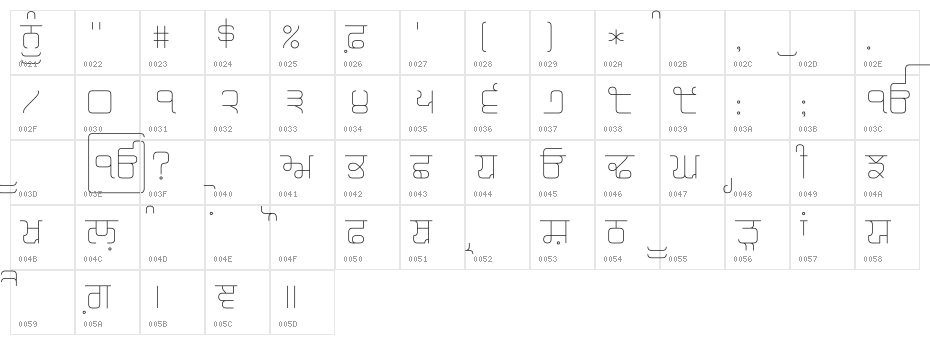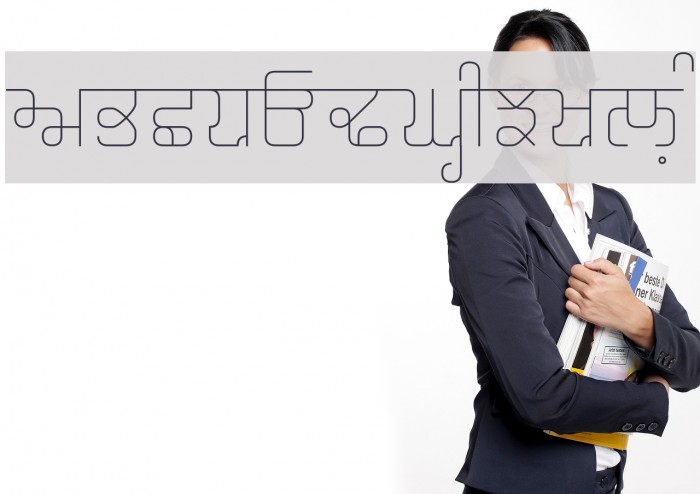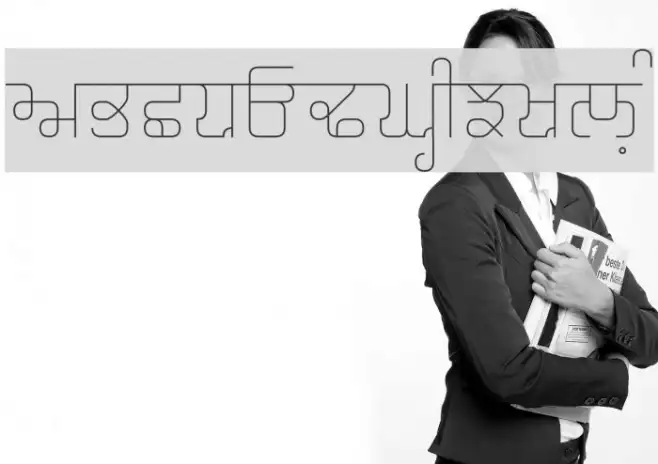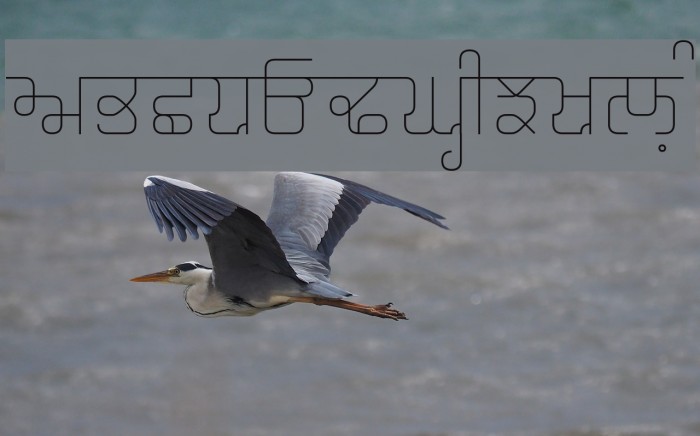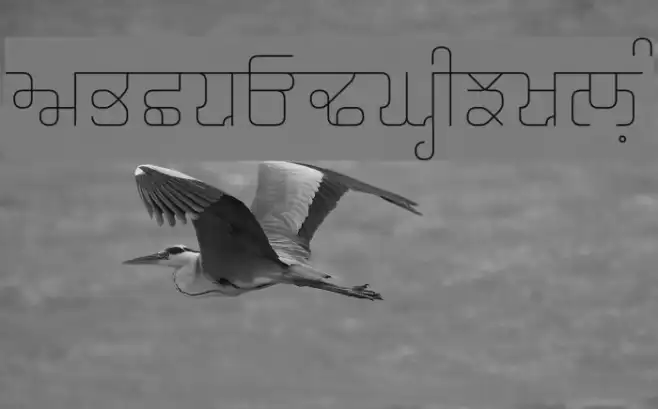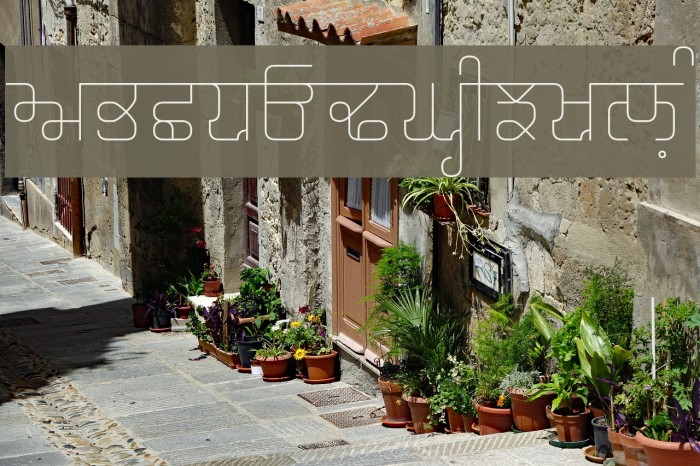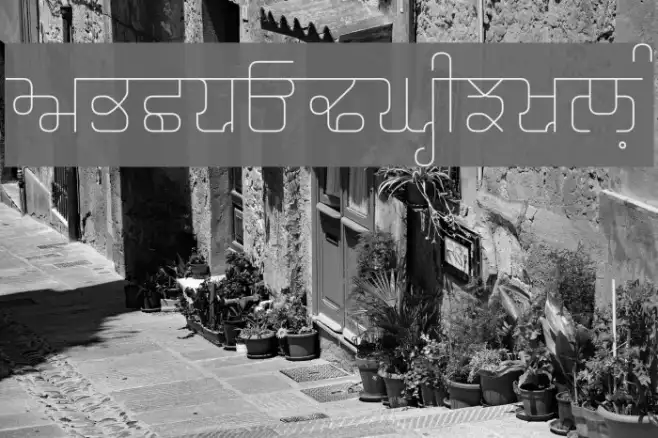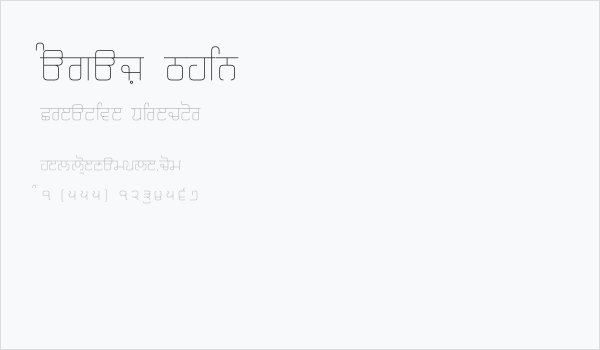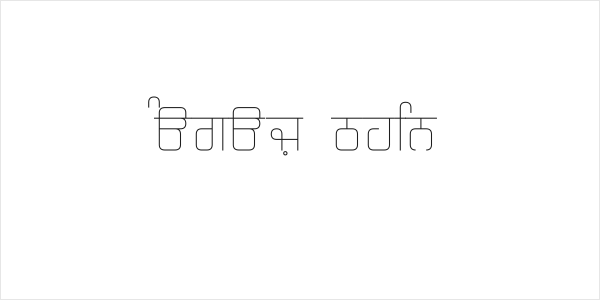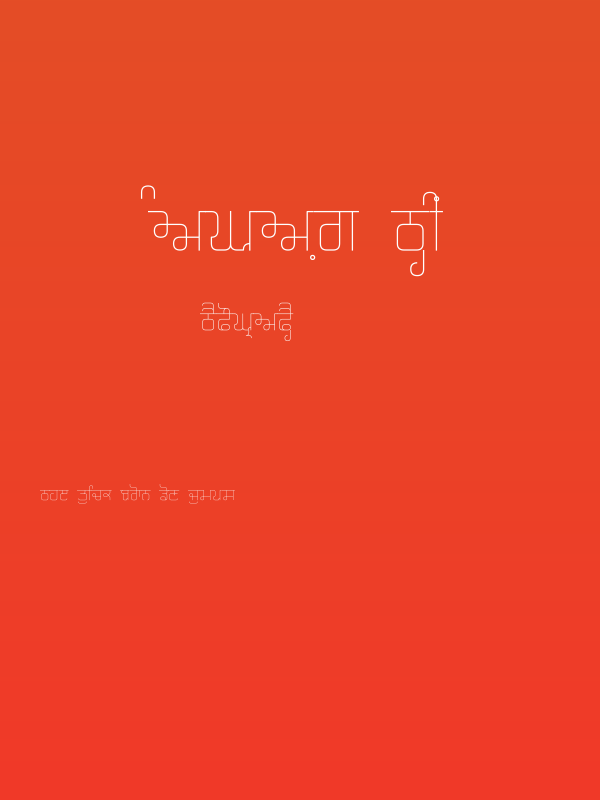
Magaz Thin Font
Magaz Thin Description
This font features a unique and modern design with a thin, geometric structure. The characters are composed of continuous lines with rounded corners, giving it a futuristic and minimalistic appearance. The uppercase and lowercase letters maintain a consistent style, with a focus on simplicity and elegance. The numbers and special characters follow the same design principles, ensuring a cohesive look across all elements. This font's distinct style makes it suitable for creative and contemporary projects.
| Overall Style | Futuristic and minimalistic |
| Use Case | Logos, headlines, digital media |
| Proposed Projects | Ideal for branding, digital media, modern art projects, and innovative product packaging. |